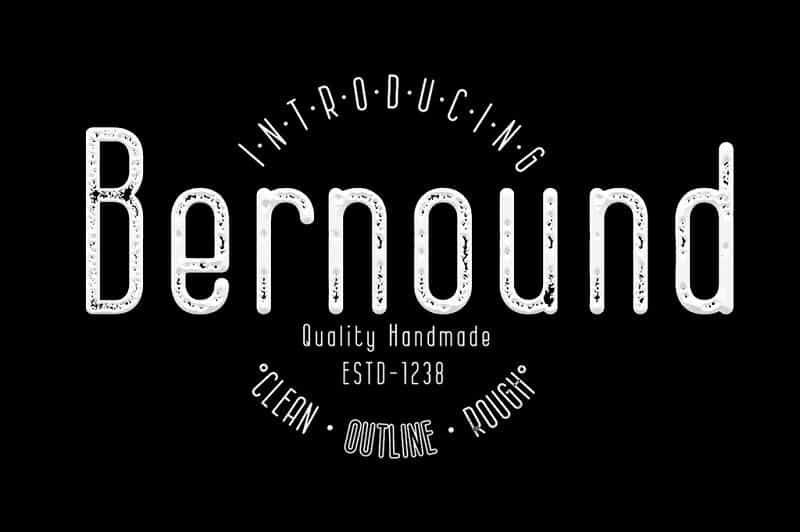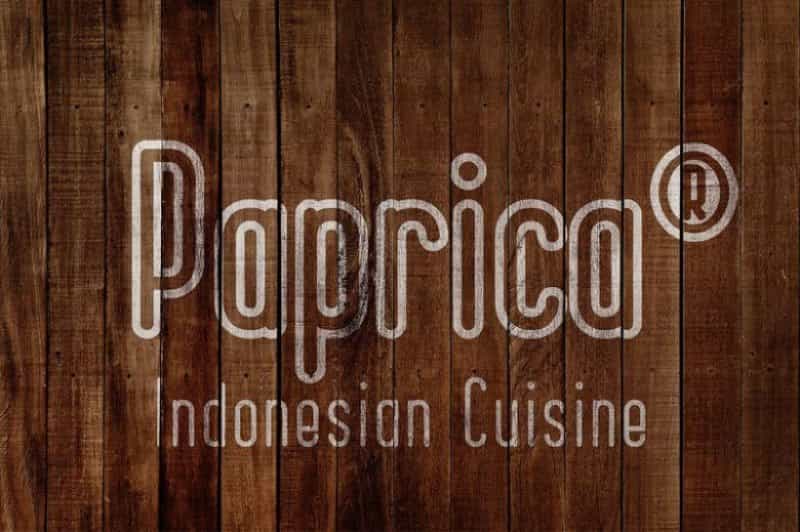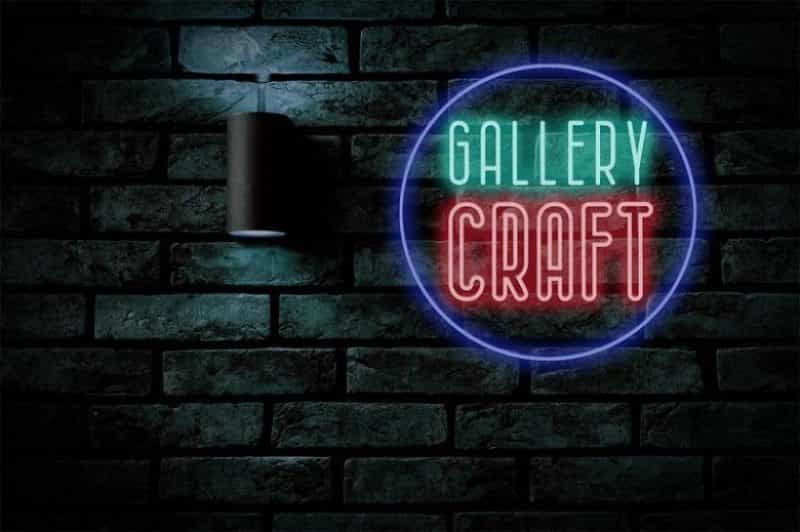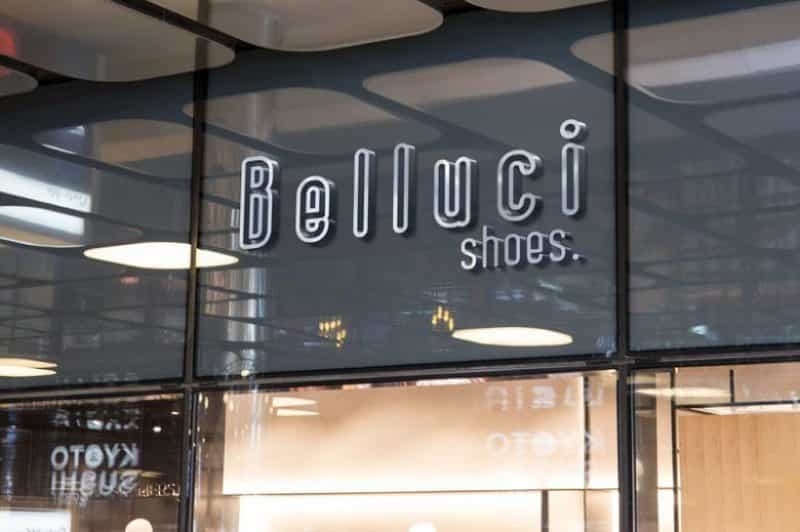
The Bernound is one of the best typefaces that are available in three variants of weight. The clean weight is featured as rounded corners and slim body design which gives a simple appearance. The outlined weight looks rather elegant when used alone, while the rough weight has a touch of vintage, rustic and grunge to it.